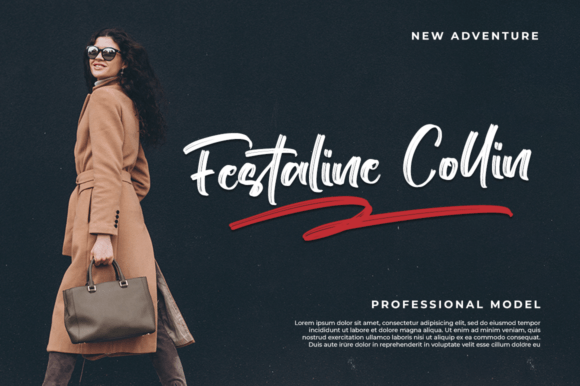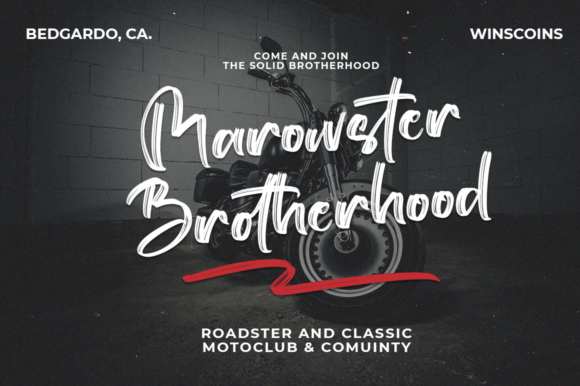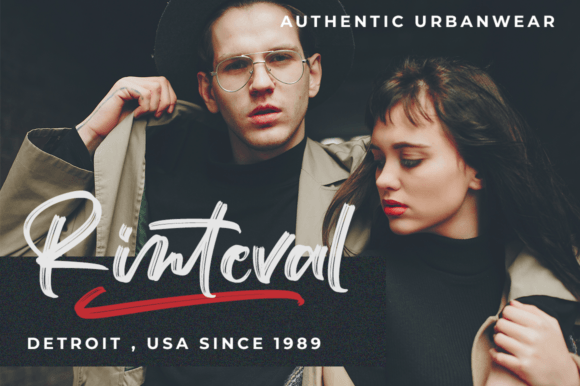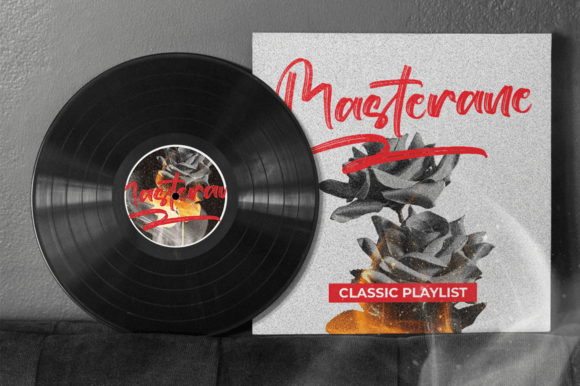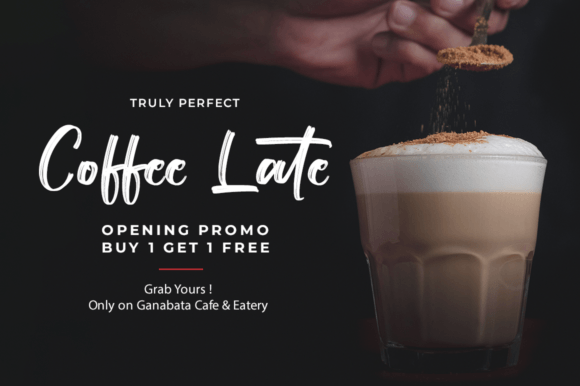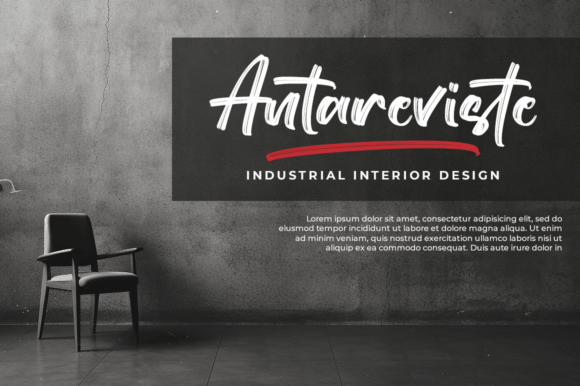
Unleash Your Creativity with Frontwars Brush Font
Have you ever found yourself staring at a blank canvas, struggling to bring your vision to life? It’s a feeling we’ve all experienced at some point – the blank page staring back, taunting us to create something beautiful. But what if I told you that there’s a secret to unlocking your full creative potential?
Meet Frontwars Brush Font, the ultimate tool for designers who crave a touch of elegance and whimsy in their work. This unique brush font is designed to capture the essence of handwritten beauty, making it perfect for elevating your branding or adding a personal touch to any project. Whether you’re a seasoned pro or a budding designer, Frontwars Brush Font is sure to become your new go-to for creating stunning designs that leave a lasting impression.
Key Features of Frontwars Brush Font
- Size and Resolution: The font is available in a single weight, with a character set that includes uppercase and lowercase letters, numbers, and punctuation marks. The recommended resolution for optimal viewing is 300 DPI.
- Unique Characteristics: Frontwars Brush Font features a distinctive brush stroke style, giving it a hand-drawn, artistic feel that is perfect for creative projects and designs where a more human touch is desired.
- Legibility: Despite its brush stroke style, Frontwars Brush Font remains highly legible, making it suitable for use in body text and headings.
- Language Support: The font includes a comprehensive character set that supports multiple languages, including Latin, Cyrillic, and Greek alphabets.
- Scalability: Frontwars Brush Font is designed to be highly scalable, allowing it to be used effectively in a wide range of applications, from small text to large headings.
Frontwars Brush Font Review
Overall, I was excited to try out the Frontwars Brush Font, hoping it would bring a unique touch to my design projects. ✨ One of the things that works well with this font is its organic feel, which makes it perfect for creating a hand-drawn or handwritten look. It’s also quite versatile and can be used in a variety of contexts, from logos to headings.
Another positive aspect is its high level of customization. The font comes with a range of styles and weights, allowing designers to choose the perfect fit for their project. Additionally, the font is highly legible, even at small sizes, making it ideal for body text.
- ⚠️ Limited language support: The font only includes a limited range of languages, which may be a problem for designers working on international projects.
- ⚠️ Not ideal for small text: While the font is legible at small sizes, it can still be difficult to read in certain situations, such as in lists or small body text.
Overall, I think the Frontwars Brush Font is a solid choice for designers looking to add a unique touch to their projects. However, it may not be the best option for every project, and designers should be aware of its limitations before using it.
Getting the Most Out of Frontwars Brush Font
For best results, use Frontwars Brush Font in conjunction with bold or italic text to create a unique and eye-catching effect.
You can also use the font to create a hand-drawn or handwritten look by adjusting the font size and color.
Experiment with different font sizes and colors to find the perfect combination for your project.
Frontwars Brush Font is ideal for:
1. Social media graphics and posts.
2. Marketing materials and advertisements.